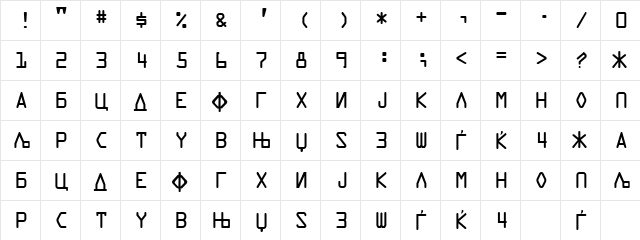
X_System Normal
Design Context for X_System Typeface
X_System is a composed and adaptable typeface that performs quietly and consistently across a wide range of design contexts.